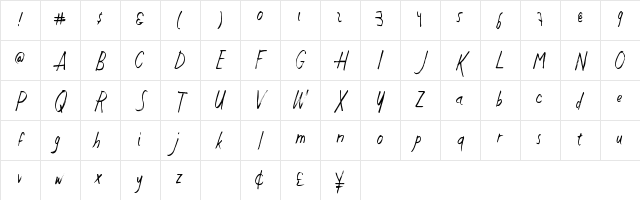
JustWriteDT Regular
Foundry: Xerographer Fonts
Designer: Xerographer Fonts Max Infeld
Design Context for JustWriteDT
JustWriteDT is a composed and adaptable typeface that performs quietly and consistently across a wide range of design contexts.
Pro Tip: Use JustWriteDT in both headline and body roles to test its range before committing to a single application.